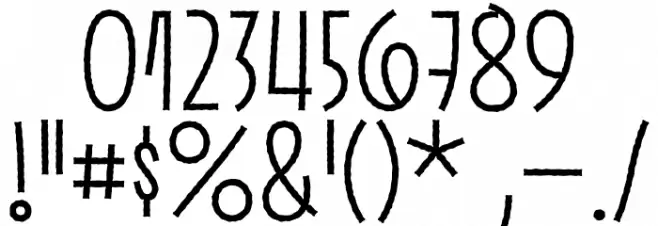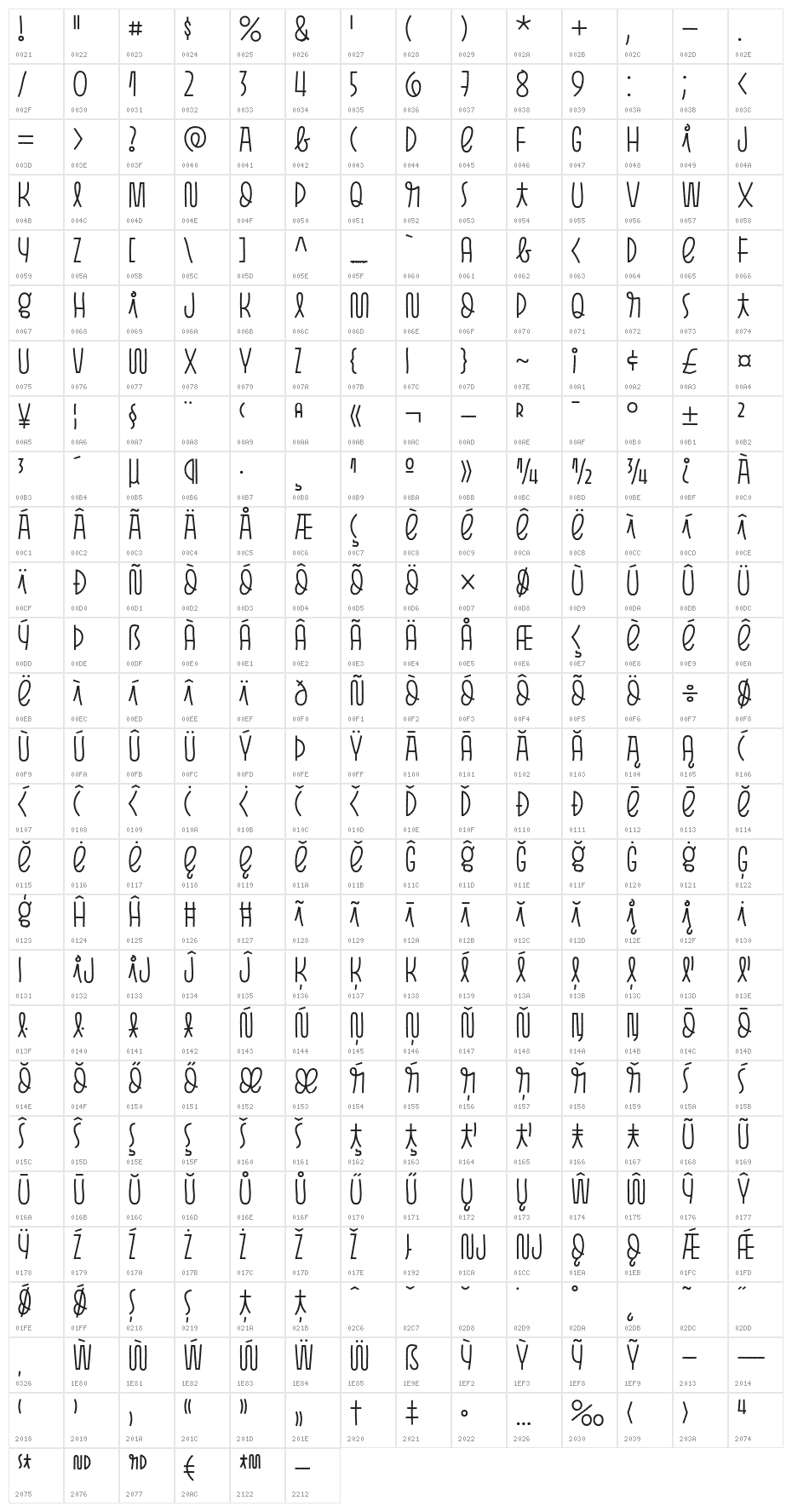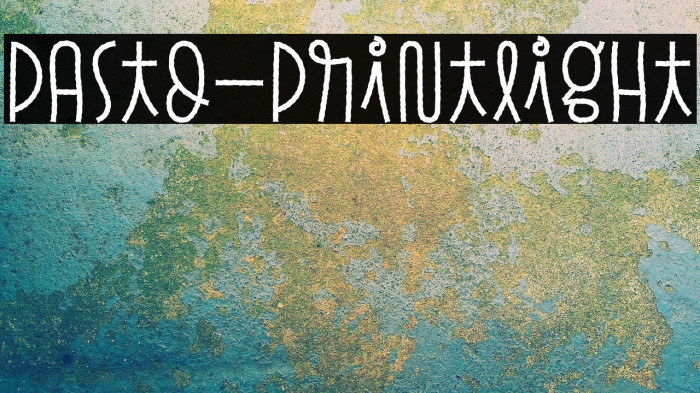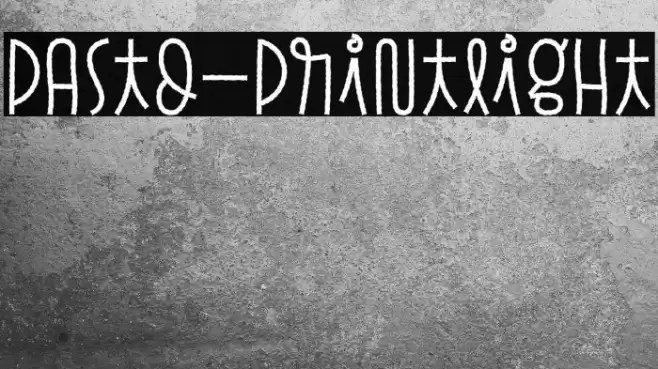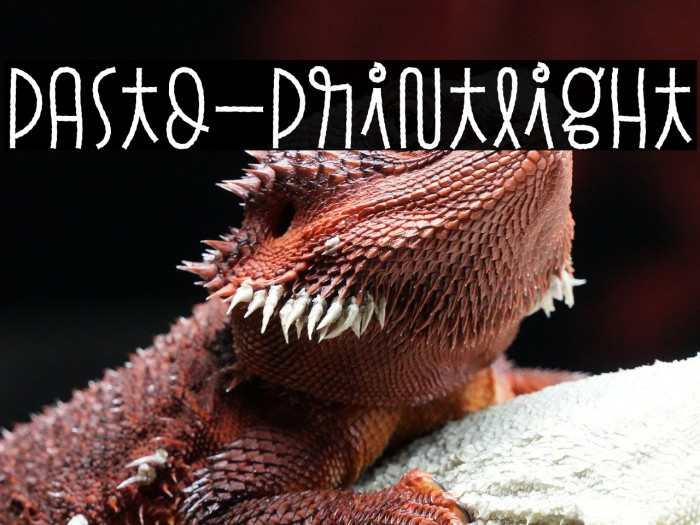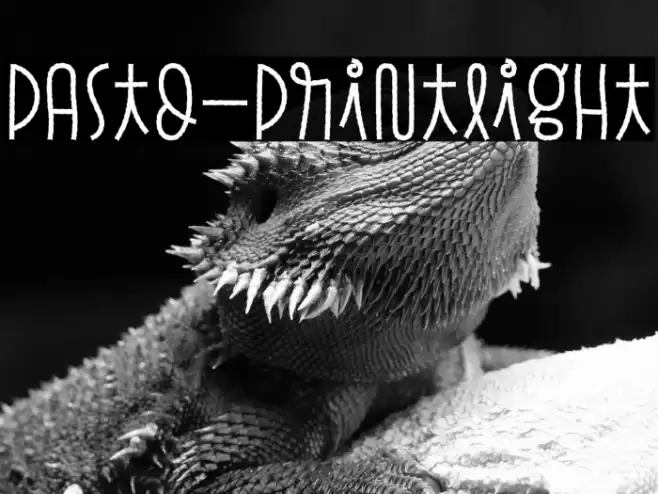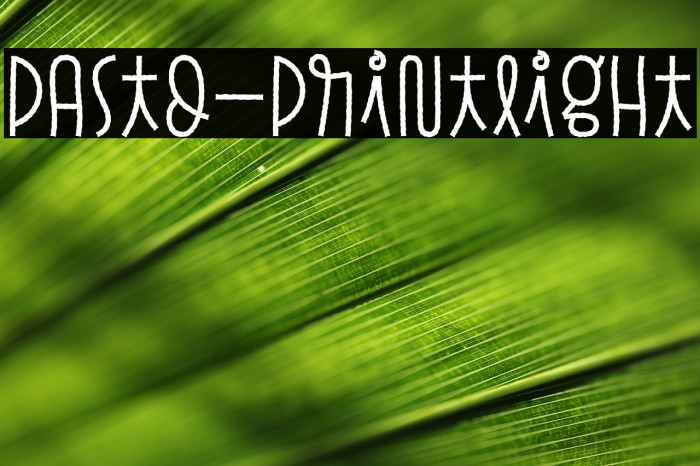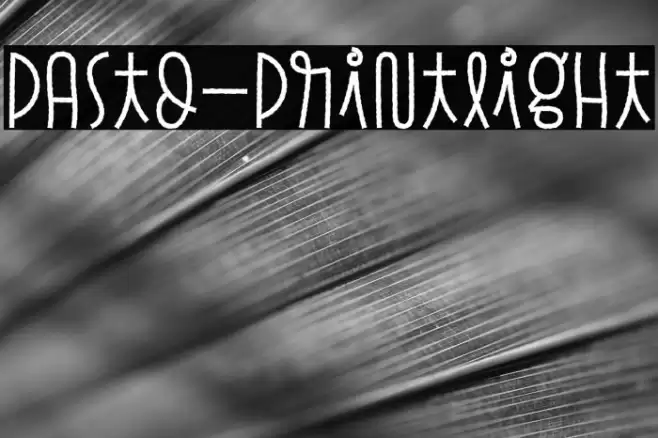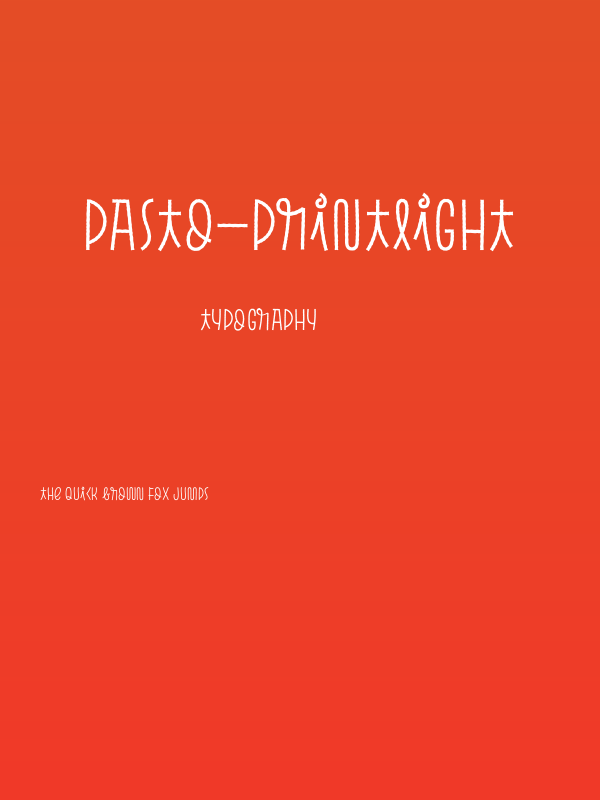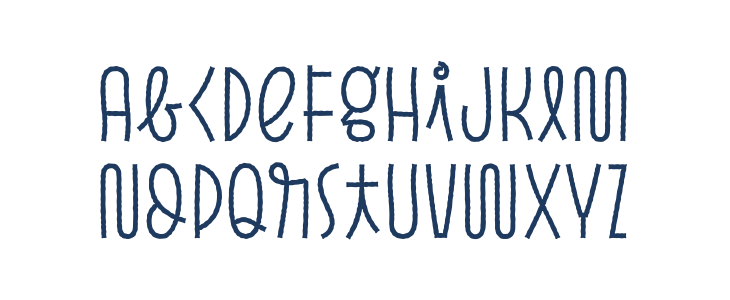
Pasto-PrintLight Font
Pasto-PrintLight Description
This font features a unique and playful design with a hand-drawn aesthetic. The characters are tall and narrow, with a whimsical flair that includes unexpected curves and angles. The uppercase letters have a distinct personality, with some characters incorporating loops and swirls, adding to the font's quirky charm. The lowercase letters maintain this playful style, ensuring consistency throughout. Numbers and special characters follow the same design principles, making the font versatile for various creative applications. The overall look is both artistic and approachable, making it suitable for projects that require a touch of creativity and individuality.